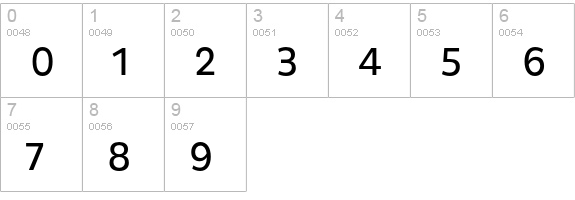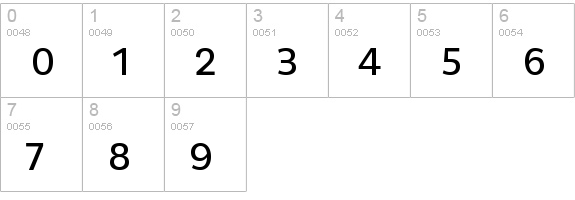
Pluto Cond Regular is the standard, neutral, condensed-width variant in the Pluto typeface family \xE2\x80\x94 well suited to general body text, paragraphs, and standard typographic work.
Pluto Cond Regular font is a versatile and modern typeface that exudes a sense of elegance and sophistication. Its clean lines and balanced letterforms make it suitable for a wide range of design projects, from branding to editorial layouts. The font's condensed style gives it a sleek and contemporary look, perfect for making a statement. What sets Pluto Cond Regular font apart is that it is available for free download at FontsMarket.com. This means that designers and creatives can access this high-quality font without any cost, making it a valuable addition to their font library. With its timeless appeal and easy readability, Pluto Cond Regular font is sure to enhance any design project it is used in.